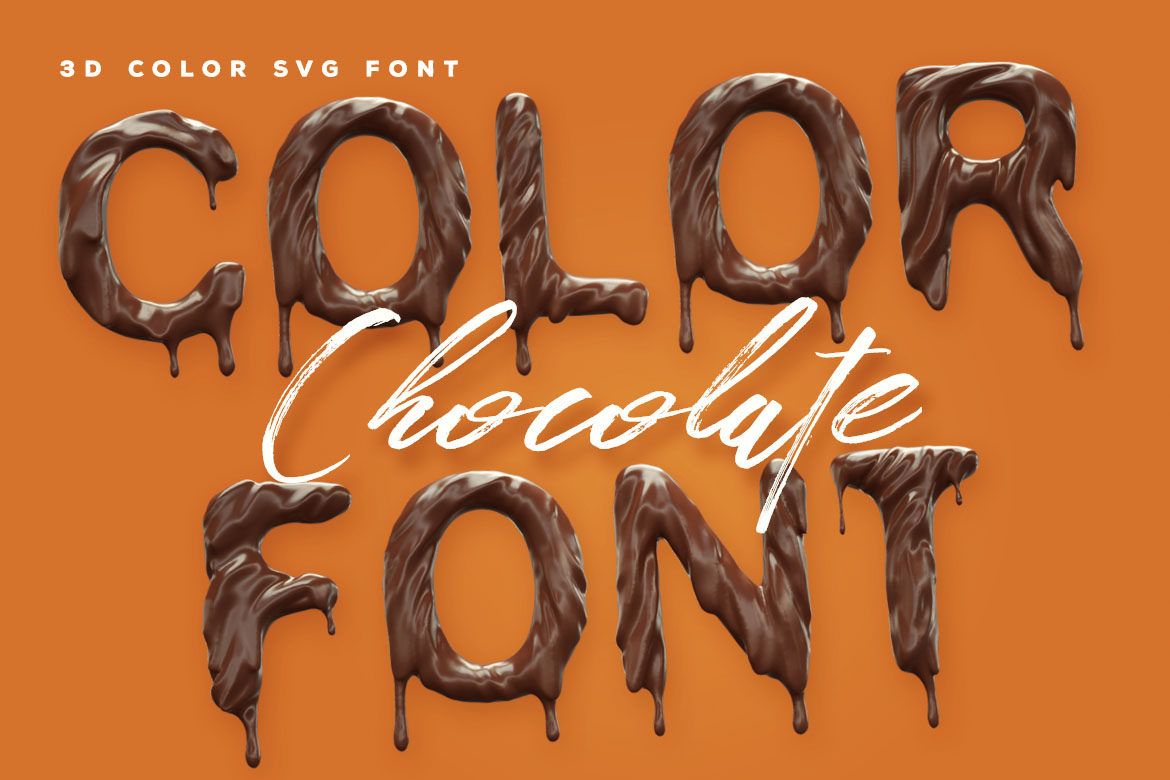
Chocolate 3D Color SVG Font
Chocolate 3D Color SVG Font is perfect for bakery branding, confectionery logos, dessert packaging design, candy shop signage, sweet treat marketing, chocolate advertising campaigns, playful food graphics, and indulgent product presentations.
Chocolate 3D Color SVG Font is exciting because it delivers mouth-watering visual appeal with innovative 3D color technology that creates realistic chocolate textures and dimensional effects. Its delicious character evokes immediate cravings and sweet satisfaction that perfectly captures the irresistible allure of chocolate confections and dessert indulgence.
Chocolate 3D Color SVG Font family includes full-color 3D effects with chocolate-inspired variations and sweet decorative elements, providing designers with comprehensive options for creating appetizing typography solutions that project confectionery authenticity and dessert quality.
Creative professionals consistently select Chocolate 3D Color SVG Font for projects requiring sweet authenticity and confectionery visual impact. Its appetizing character works magnificently in chocolate boutiques, dessert packaging, confectionery marketing, and sweet shop branding where visual temptation and realistic presentation drive customer desire. The font's 3D nature creates memorable brand experiences that transport audiences into delicious chocolate wonderlands.
Design teams appreciate Chocolate 3D Color SVG Font's ability to create instant brand recognition through its distinctive chocolate character and powerful sweet appeal. Its appetizing styling transcends traditional food typography while maintaining the delicious impact required for confectionery market positioning, making it an essential tool for brands seeking to establish irresistible connections through superior chocolate typography and exceptional sweet communication.